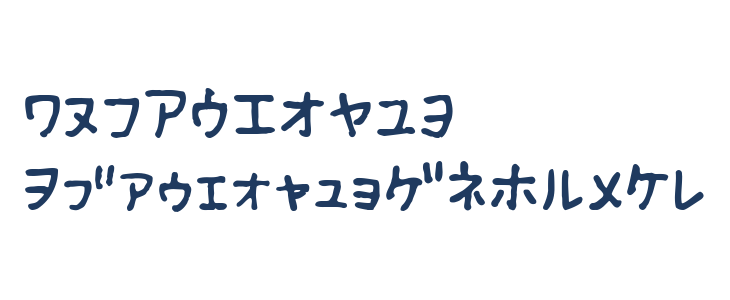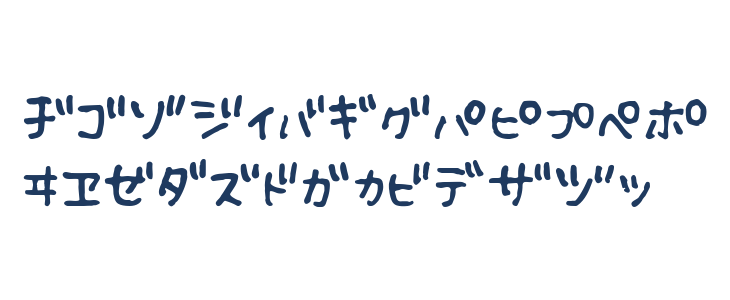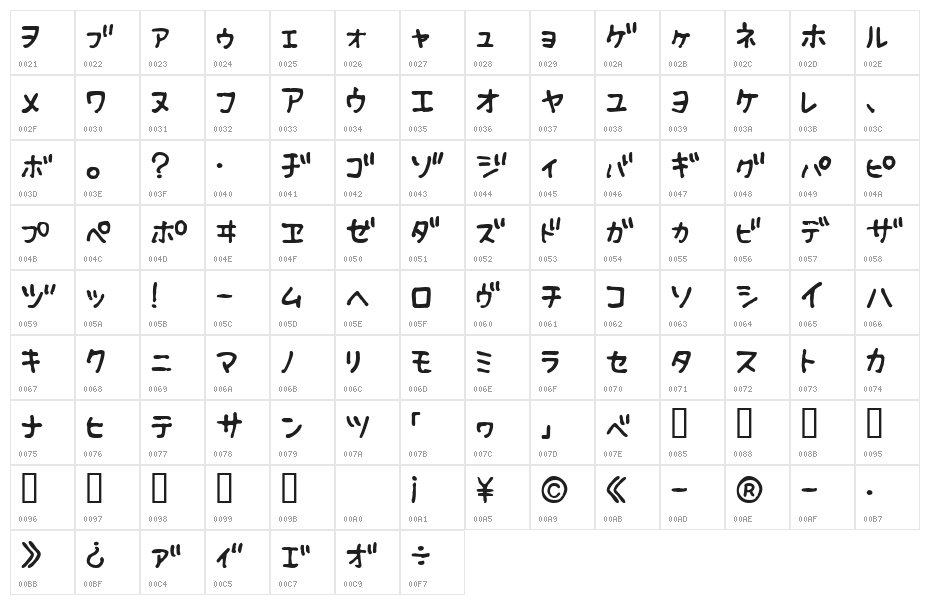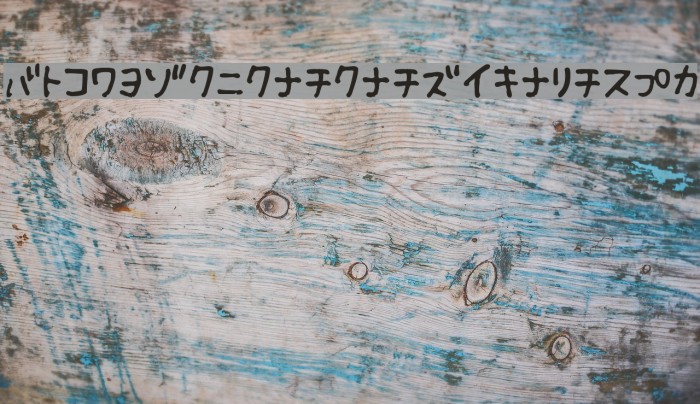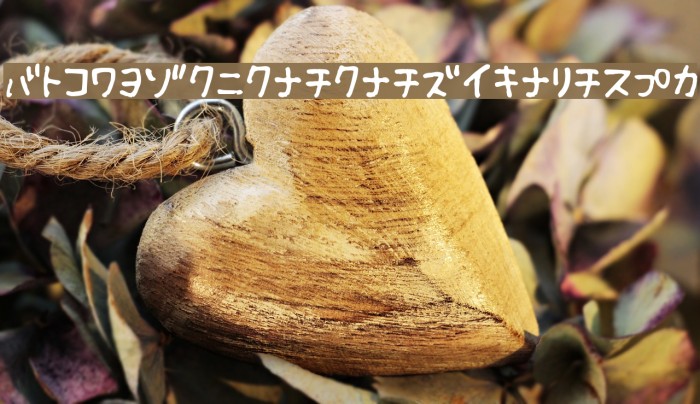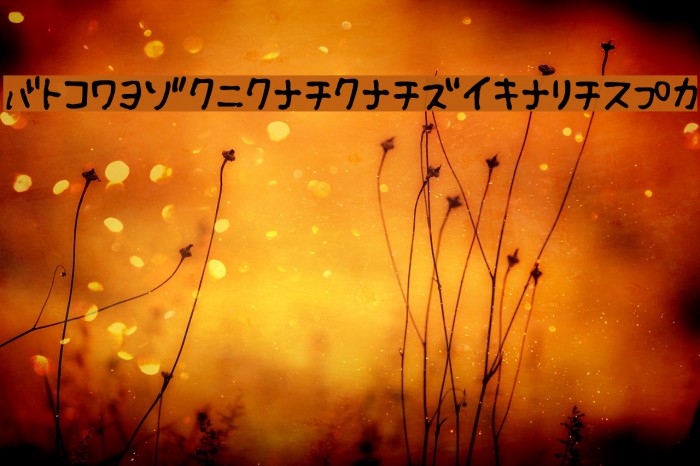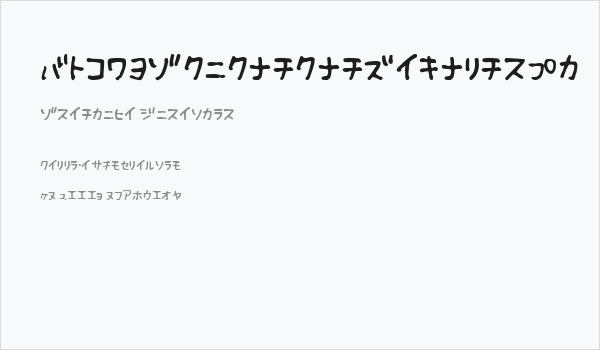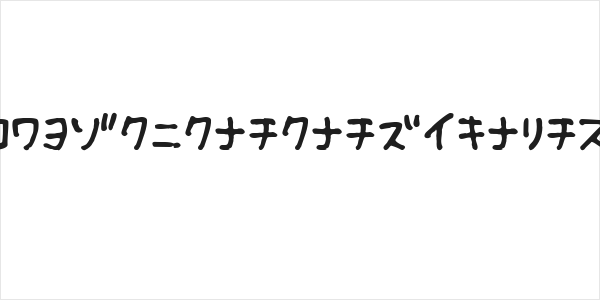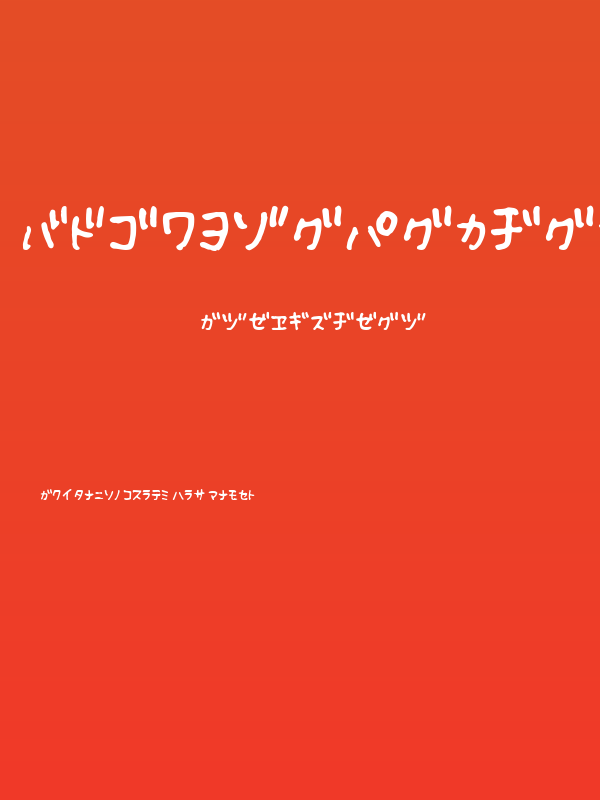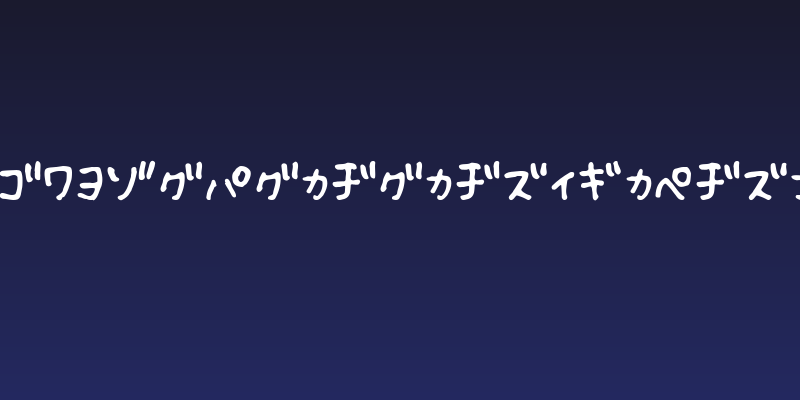
Fsb09ChihuahuaRegularKt Font
Fsb09ChihuahuaRegularKt Description
This font features a playful and informal style, characterized by its hand-drawn appearance. The strokes are uneven, giving it a whimsical and casual feel. The characters are rounded and slightly irregular, which adds to its charm and uniqueness. This style is reminiscent of handwriting, making it approachable and friendly. The font maintains a consistent weight throughout, with moderate spacing between characters that ensures readability while preserving its playful nature. It is well-suited for creative projects that require a personal touch.
| Use Case | Logos, Headlines, Informal Text |
| Proposed Projects | Ideal for children's books, greeting cards, playful branding, and informal invitations. |